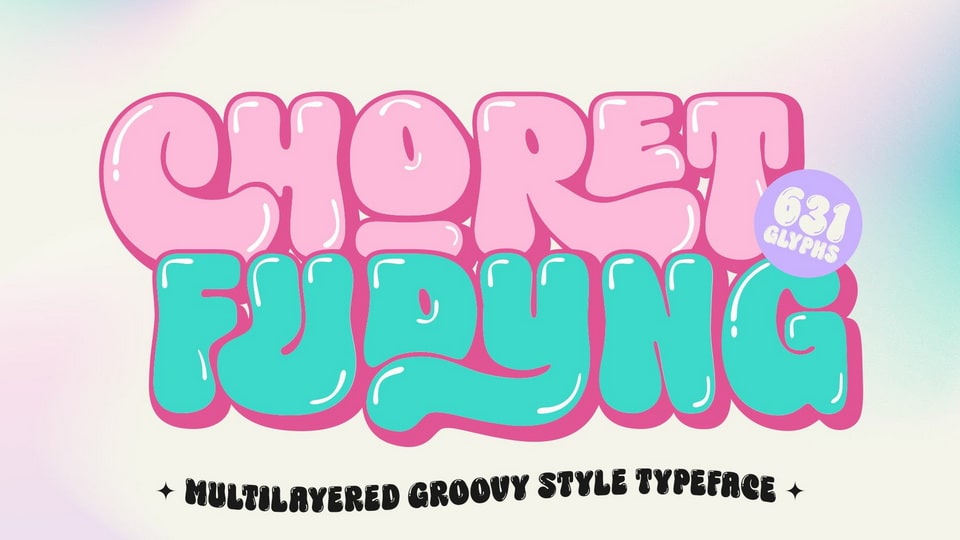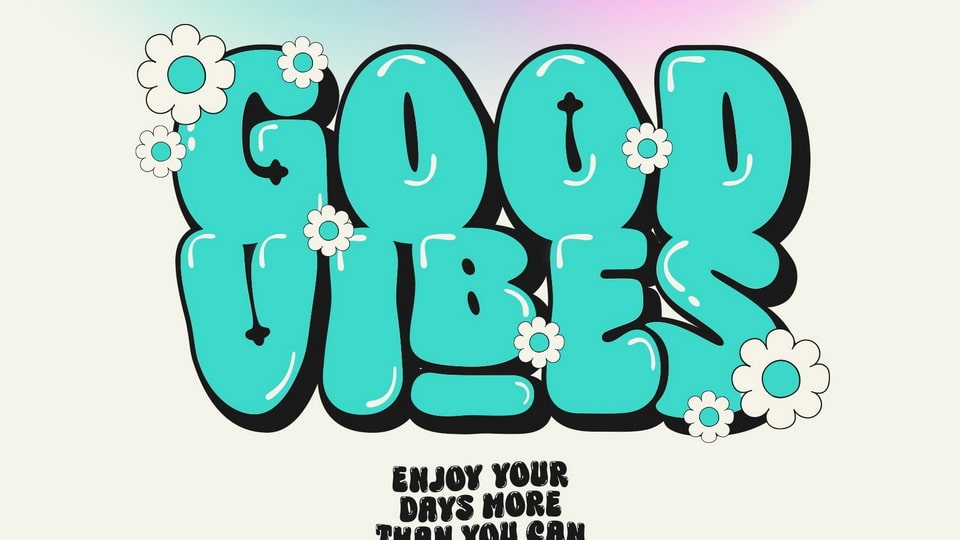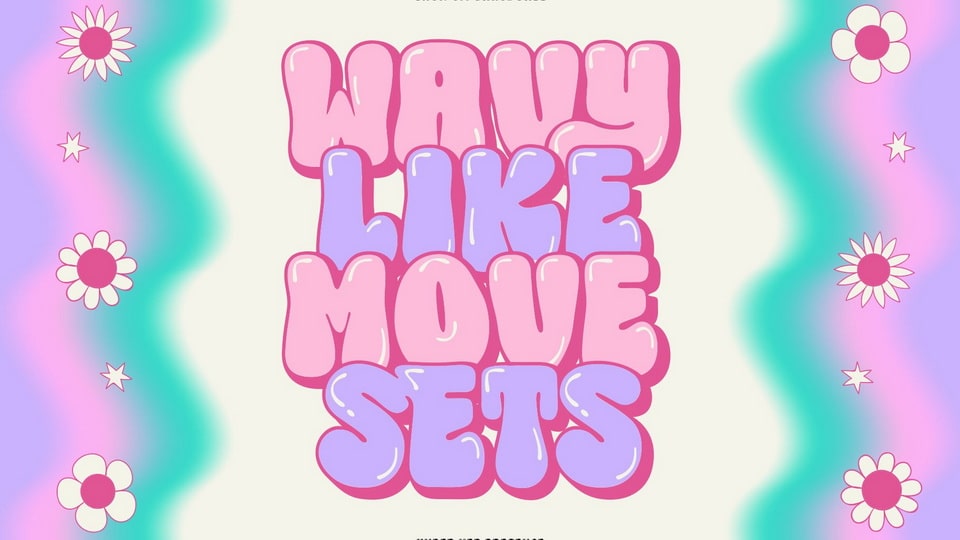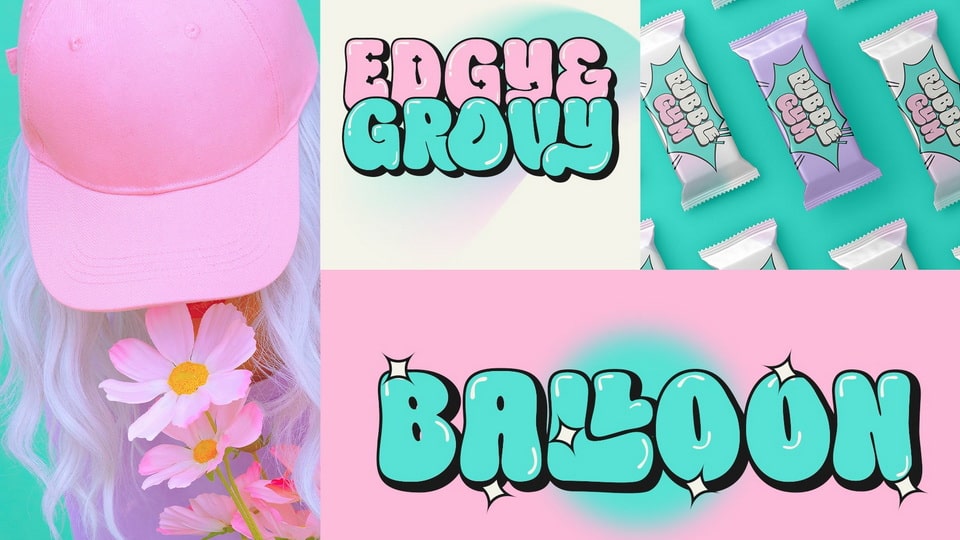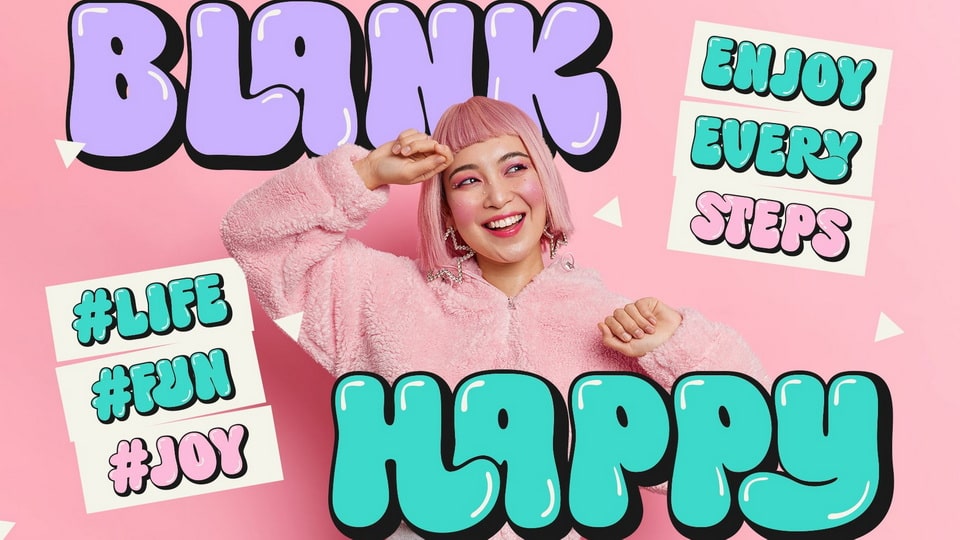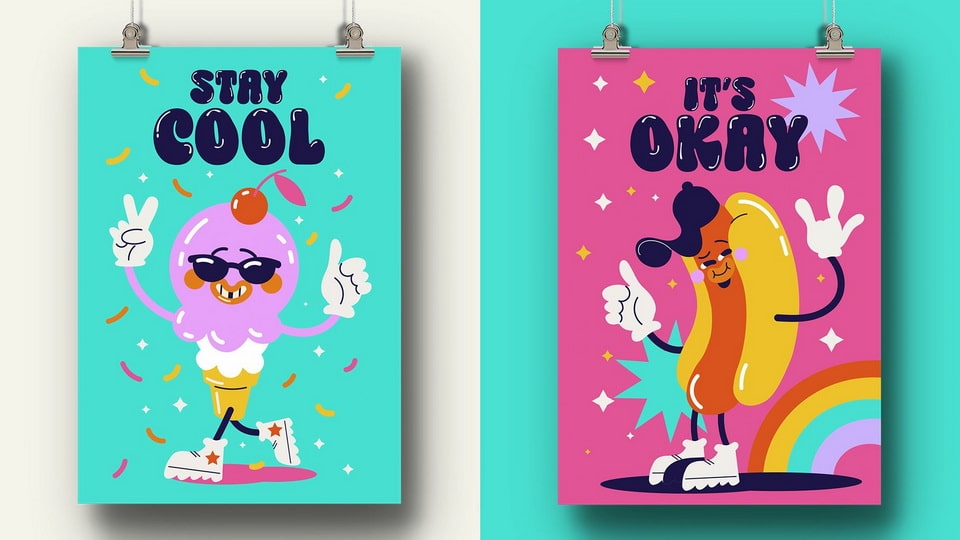
Choret Fudyng is a display font with a captivating bubble style that will elevate your designs to new heights. Whether you’re designing logos, posters, or social media graphics, Choret Fudyng has the perfect style to make your text pop.
Each letter is meticulously crafted with attention to detail, ensuring a visually pleasing and harmonious look. With Choret Fudyng, you can effortlessly add depth and dimension to your typography, creating stunning visuals that leave a lasting impression.